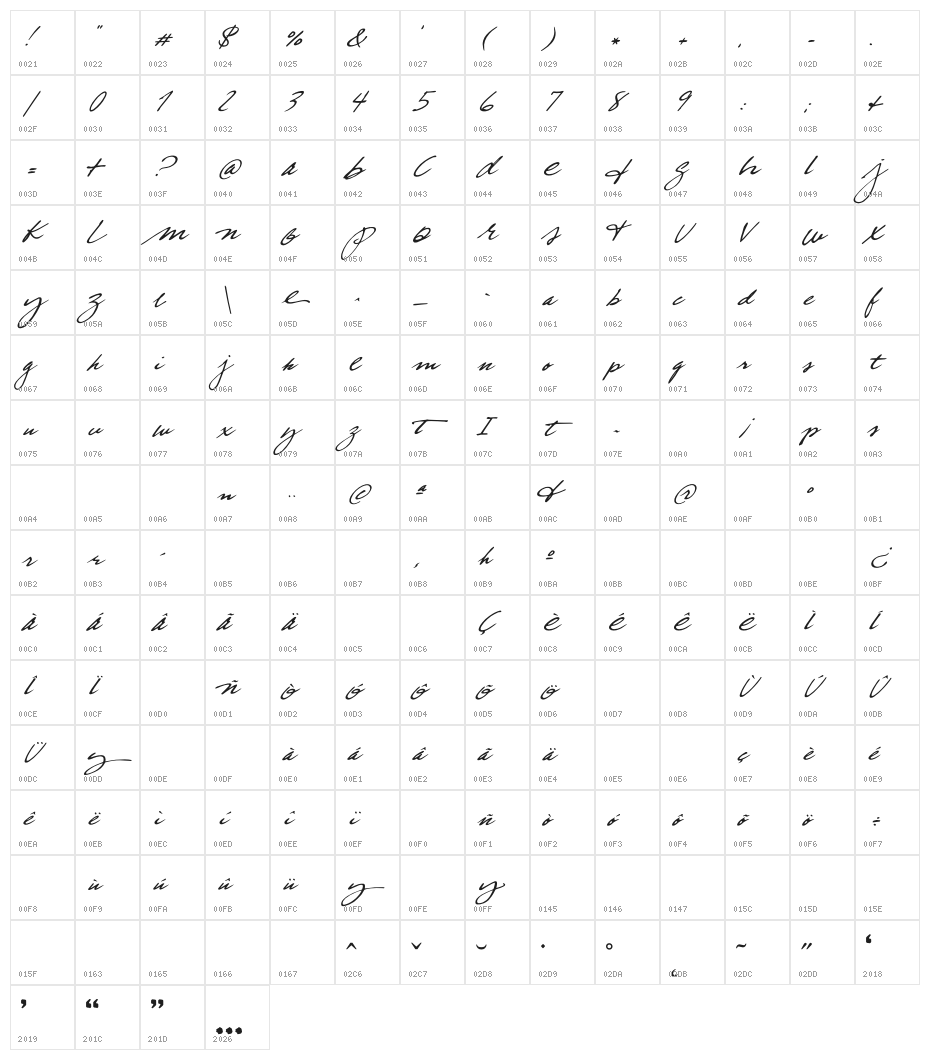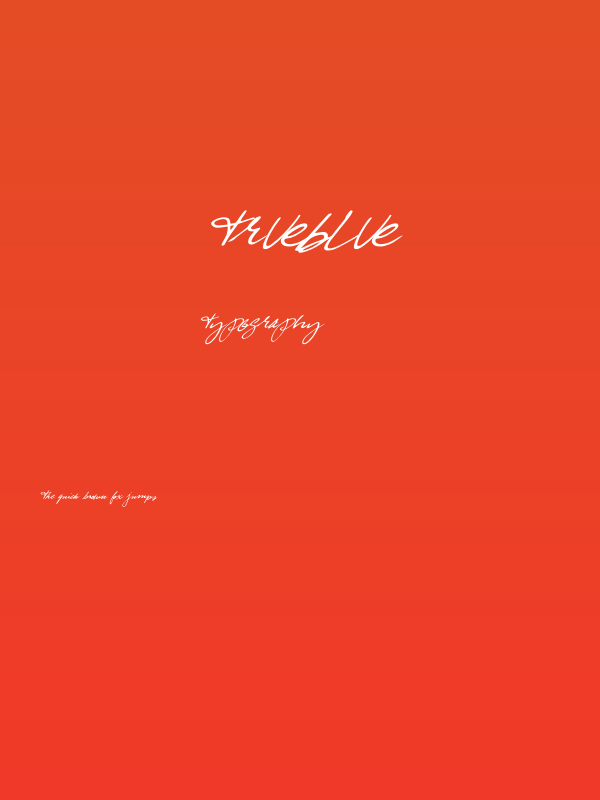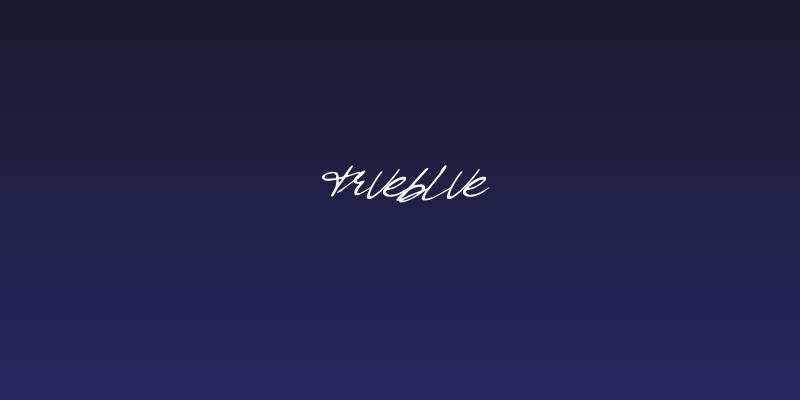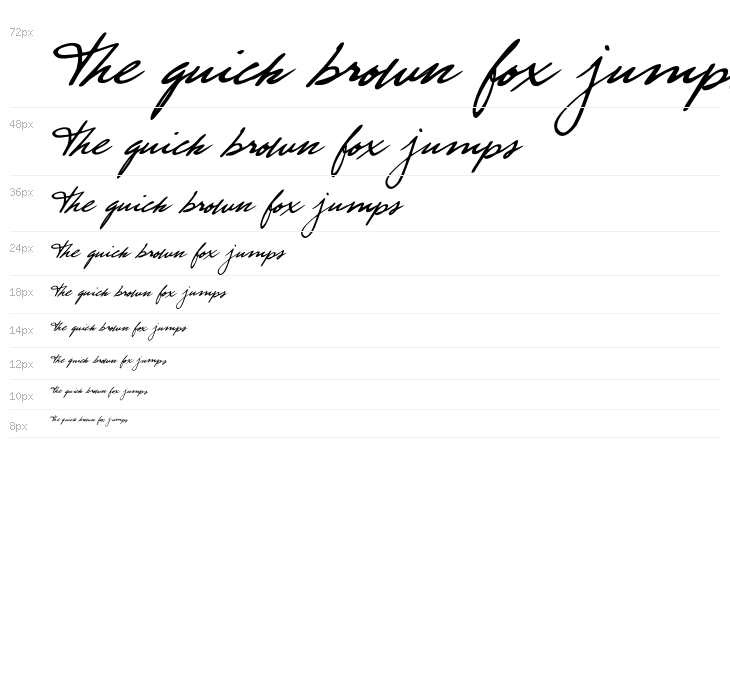
trueblue Font
trueblue Description
This font exudes a dynamic and fluid handwritten style, characterized by its elegant and flowing script. The letters are interconnected with smooth, sweeping curves that give it a natural and personal touch. The strokes vary in thickness, adding a sense of movement and rhythm to the text. The uppercase letters are bold and prominent, while the lowercase letters maintain a consistent flow, enhancing readability. Numbers and special characters are crafted with the same attention to detail, ensuring a cohesive appearance across all elements. This font is ideal for projects that require a personal, artistic touch, such as invitations, greeting cards, or branding materials.
| Proposed Projects | Ideal for invitations, greeting cards, personal branding, and artistic projects. |